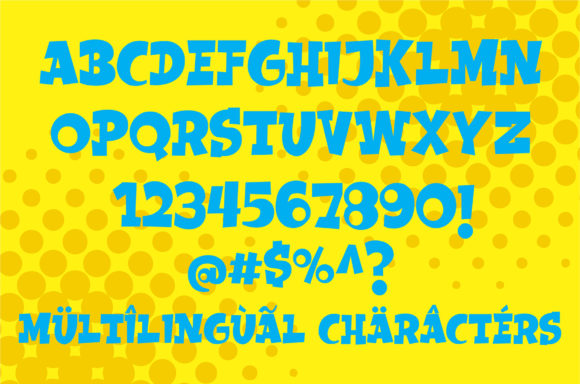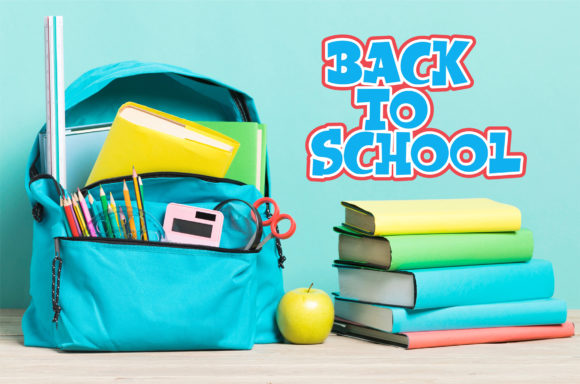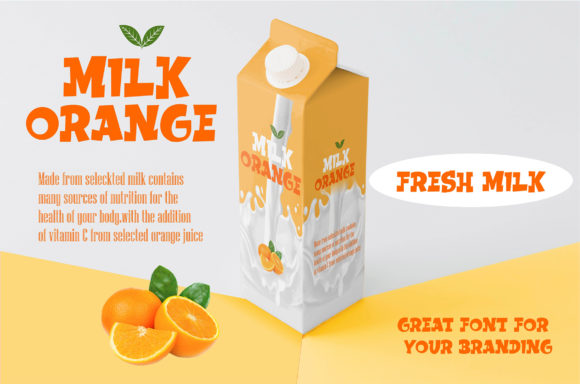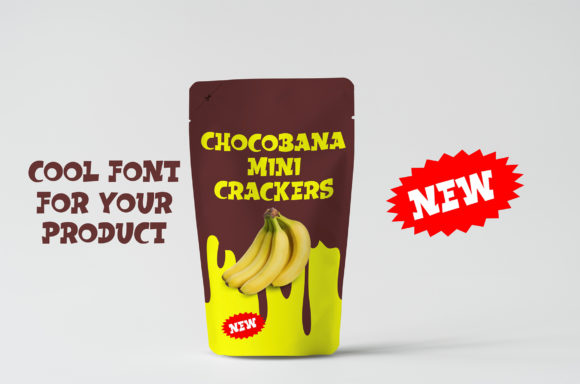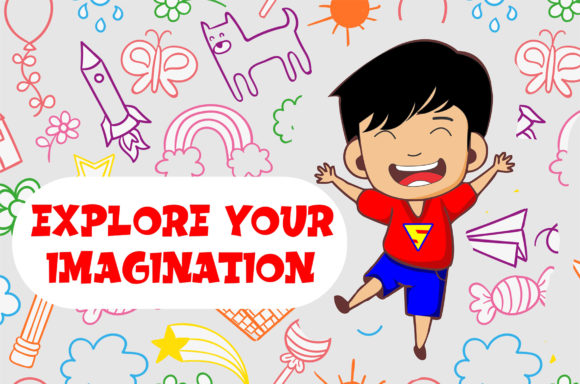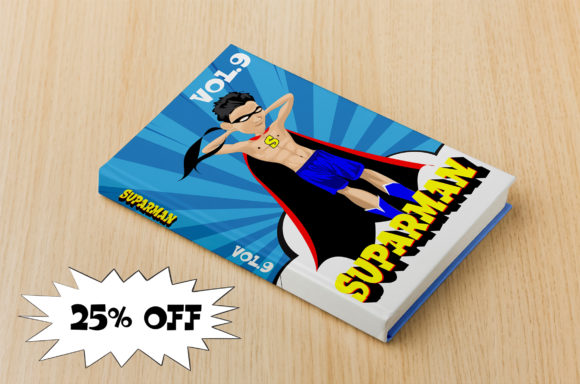
Introduction to Kidstopia Font
As a designer, there’s nothing quite like the thrill of bringing a creative project to life. You’re brainstorming ideas, experimenting with colors, and carefully selecting the perfect font to set the tone. And then, it hits you – the perfect font that makes your design shine. For many, that font is Kidstopia Font, a delightful display font that embodies playfulness and authenticity.
Kidstopia Font is more than just a design resource – it’s a game-changer. With its high-quality, chunky letters, this font is perfect for any children’s activity or school project that needs a touch of whimsy. And the best part? It’s available for free download, making it an accessible addition to your design arsenal. Whether you’re working on a design project or creating educational materials, Kidstopia Font is sure to make your work stand out.
With its transparent background and versatile design, Kidstopia Font is a valuable asset for any designer looking to add a creative touch to their work. So why settle for a bland, generic font when you can add a splash of personality with Kidstopia Font?
Key Features of Kidstopia Font
- High-quality, hand-drawn design perfect for creative projects and design resources.
- Unique, playful style with a transparent background, ideal for use on web designs, social media, and marketing materials.
- Includes a wide range of glyphs and characters, making it suitable for various languages and creative applications.
Honest Review: Kidstopia Font
As a designer, I’m always on the lookout for high-quality design resources to enhance my creative projects. Recently, I stumbled upon the Kidstopia Font, and I must say, it’s a great find!
Here’s what works well: ✨ The Kidstopia Font has a unique and playful design that’s perfect for children’s projects, educational materials, and even marketing campaigns targeting kids. The font is highly customizable, and the transparent background makes it easy to use on any background image or color.
Some of the benefits of using the Kidstopia Font include:
- Transparent background for easy integration with any design
However, I did encounter a few limitations: ⚠️ The font is only available in a limited number of styles, which might be a concern for designers who need a more extensive font family. Additionally, the font might not be suitable for projects that require a more formal or professional tone.
Overall, the Kidstopia Font is a great addition to any designer’s toolkit, especially for creative projects targeting kids or children’s educational materials. With its unique design and high-quality features, it’s definitely worth checking out.
The Kidstopia Font is a high-quality design resource that can add a unique touch to your creative project. To get the most out of it, try combining it with other design elements, such as graphics and images, to create a cohesive look. You can also experiment with different font sizes and colors to add visual interest.
The Kidstopia Font is a versatile design resource that can be used in a variety of creative projects, including logos, posters, and social media graphics. It’s also a great option for free downloads, as it’s easy to use and customize. Additionally, its transparent background makes it easy to layer over other design elements.
Does the Kidstopia Font have a transparent background?